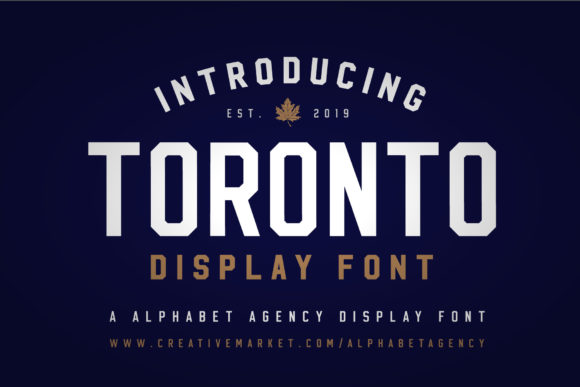
Unleash the Power of Typography with Toronto Font: The Ultimate Expression of Bold and Striking Design
In a world saturated with visual noise, your designs need a voice that cuts through the clutter and leaves an unforgettable mark. Enter Toronto Font, the display font that embodies boldness, strength, and unwavering impact. Crafted by the visionary minds at Alphabet Agency, Toronto is not just a font; it's a statement of individuality, a testament to the power of typography.
Experience the Unparalleled Versatility of Toronto Font
Toronto Font is the epitome of versatility, effortlessly adapting to diverse design landscapes. Its bold, thick letters exude a commanding presence, making it the perfect choice for headlines, logos, posters, and any design element demanding attention. Yet, its carefully crafted curves and angles lend an air of sophistication, allowing it to shine in body text, website designs, and branding materials.
Toronto Font: The Font That Inspires and Empowers
Toronto Font is more than just a collection of letters; it's a catalyst for creativity. Its distinctive style ignites inspiration, empowering designers to push boundaries and create designs that resonate with audiences. Whether you're a seasoned designer seeking to elevate your work or a newcomer eager to make a statement, Toronto Font is your ultimate companion.
Join the Toronto Font Revolution: Elevate Your Designs to New Heights